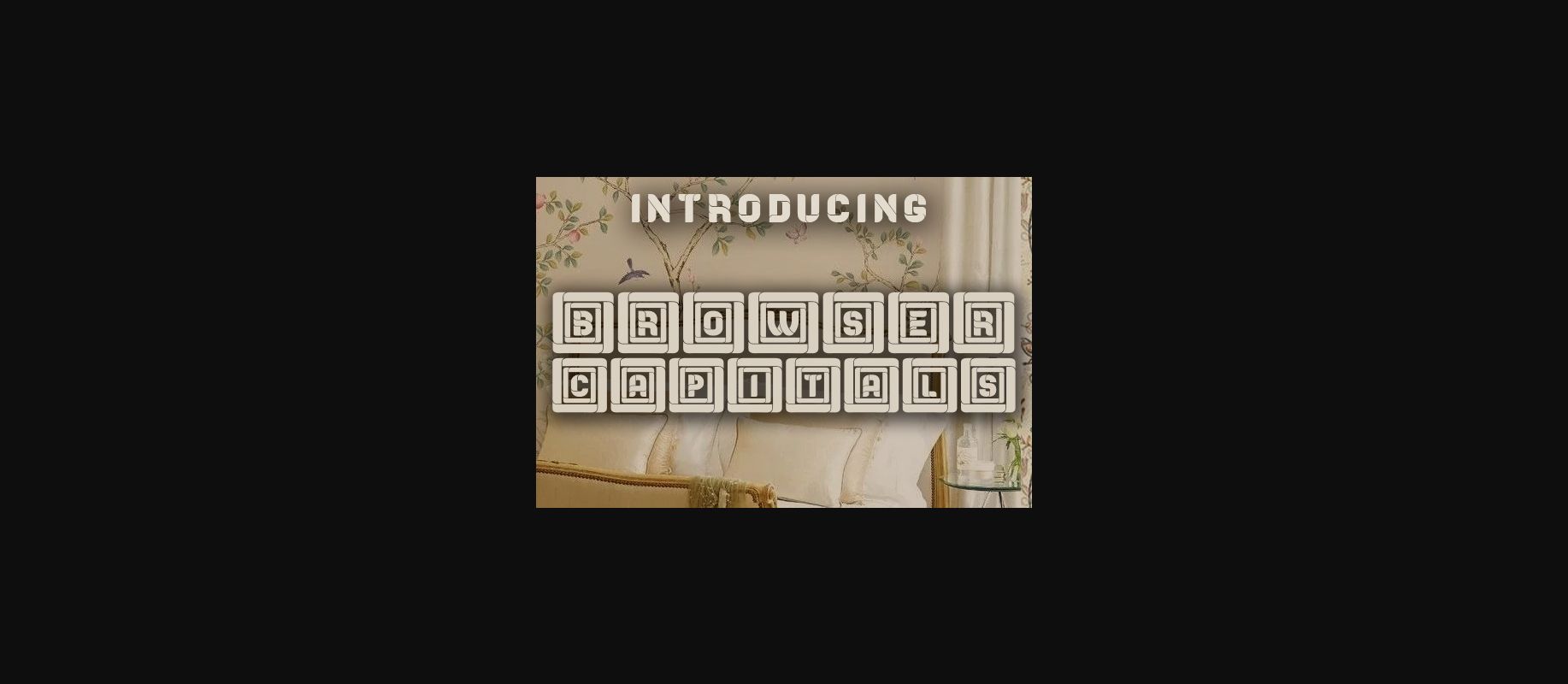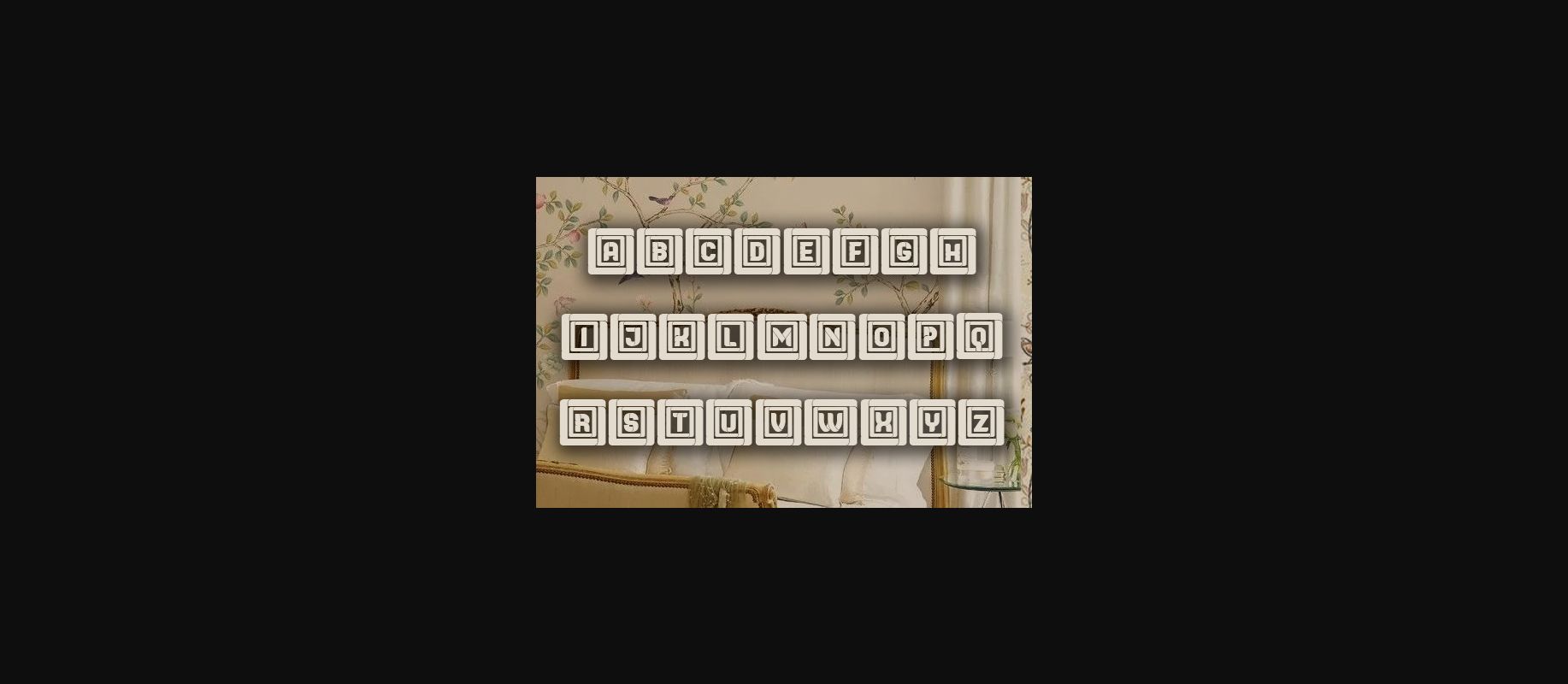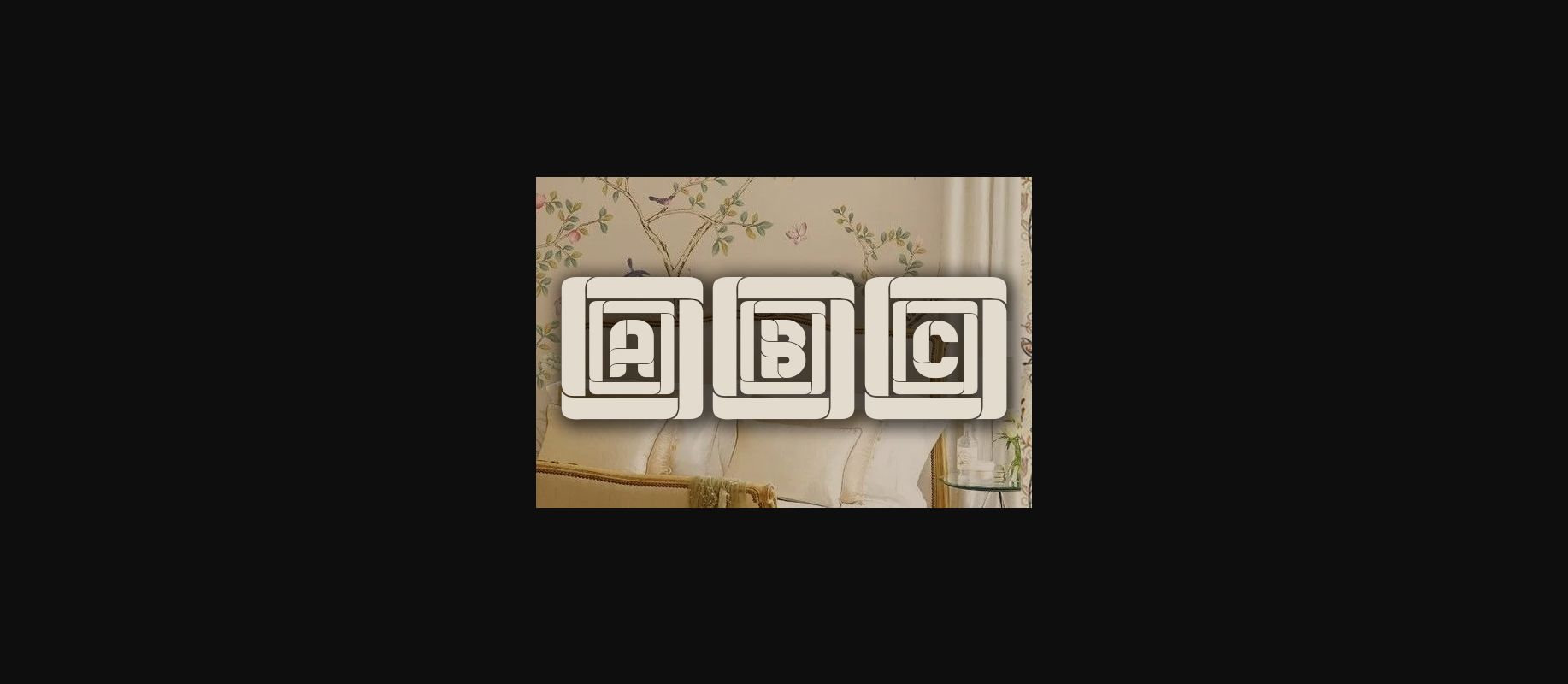
About Browser Capitals Font
Browser Capitals embodies fun, quirkiness and authenticity. This enchanting decorative font will turn any creative idea into a true standout.